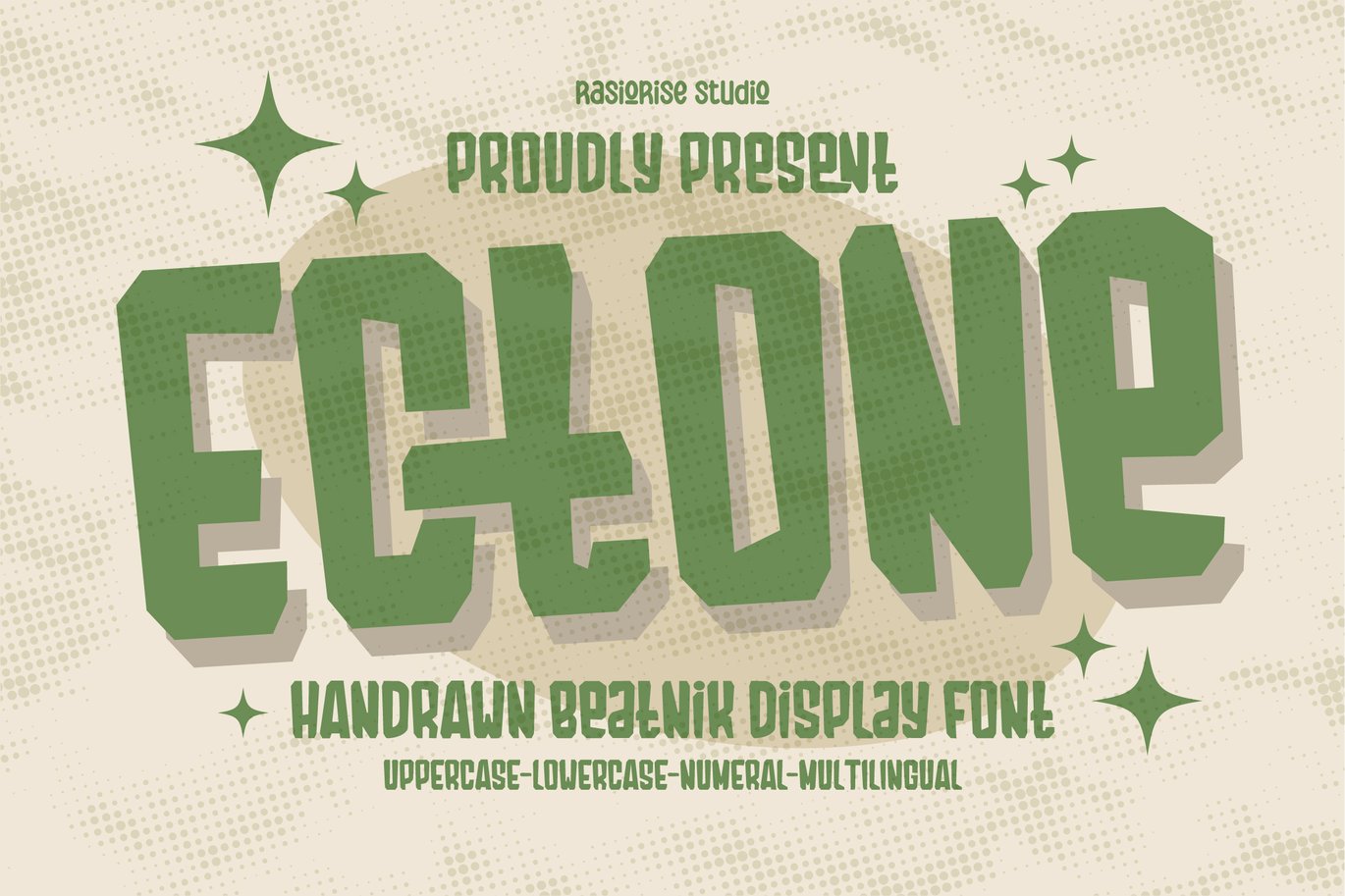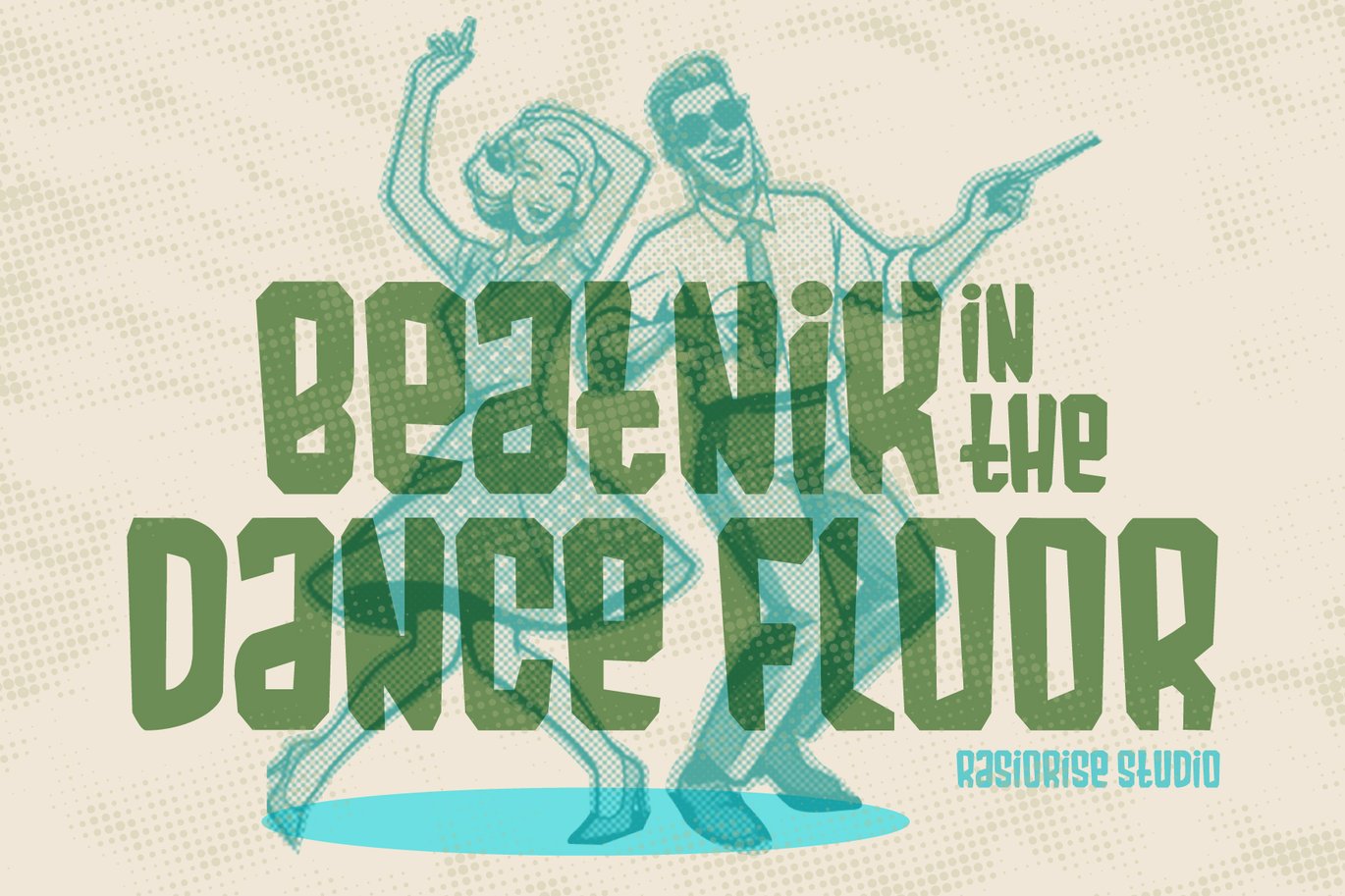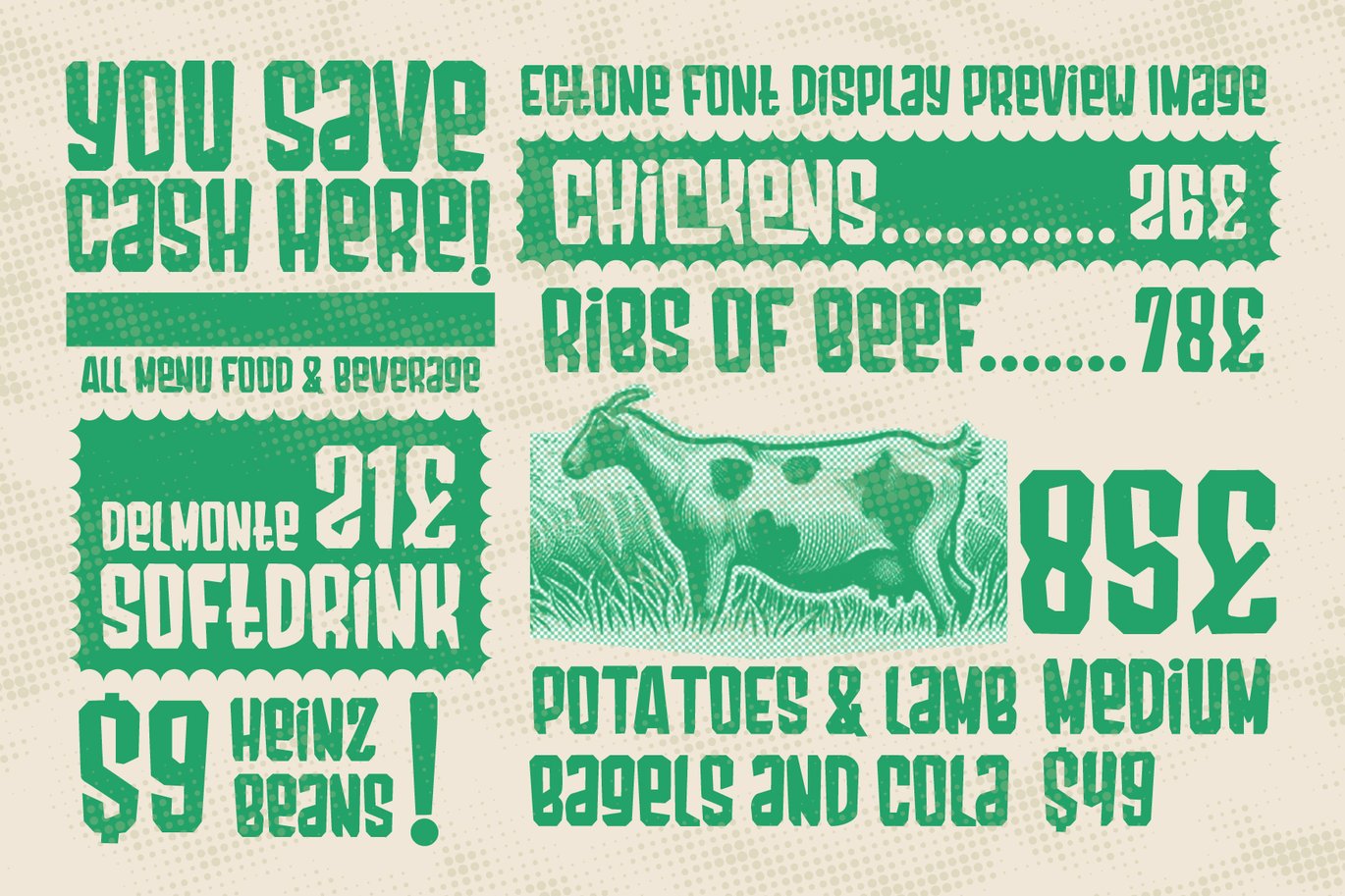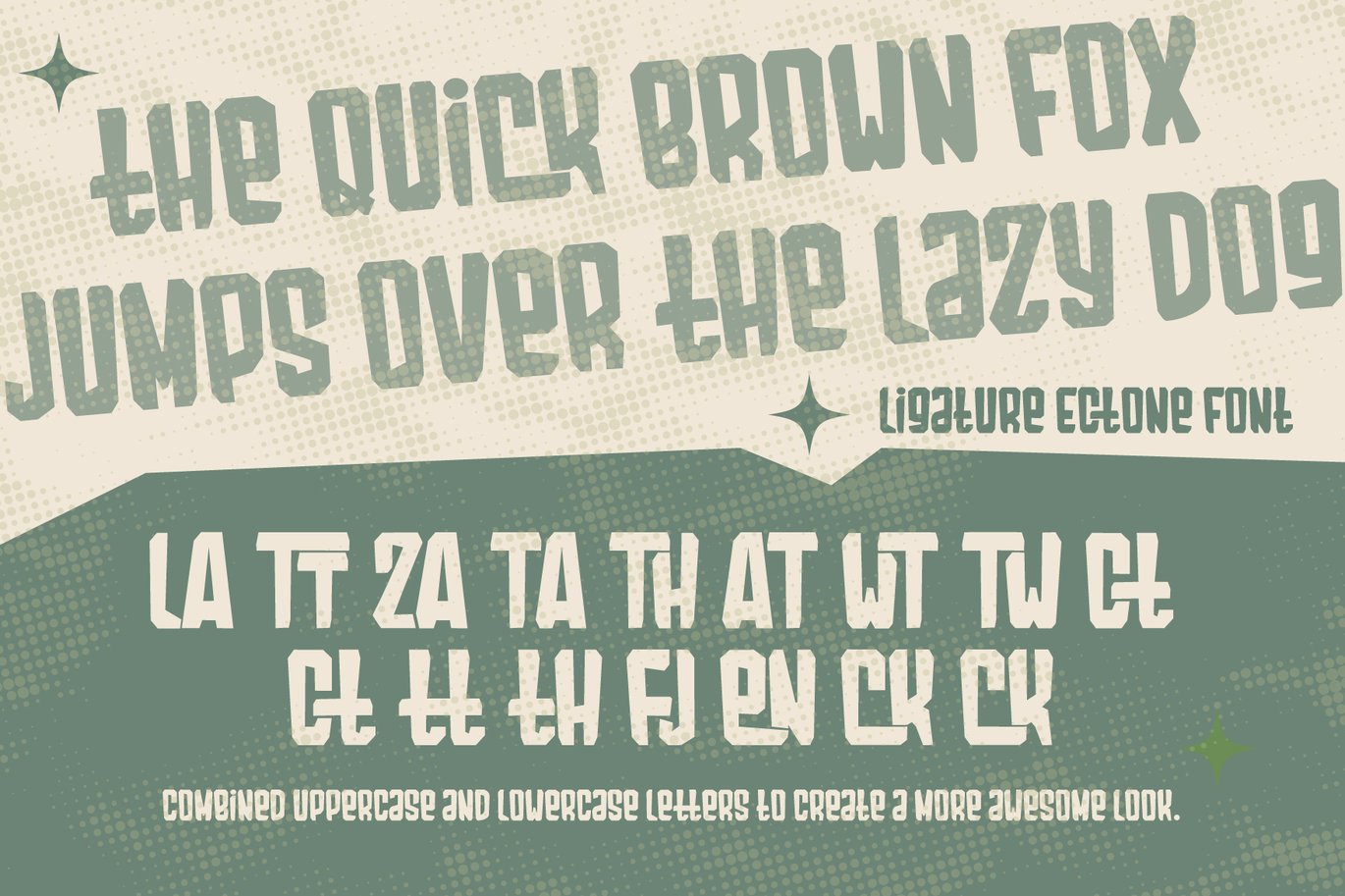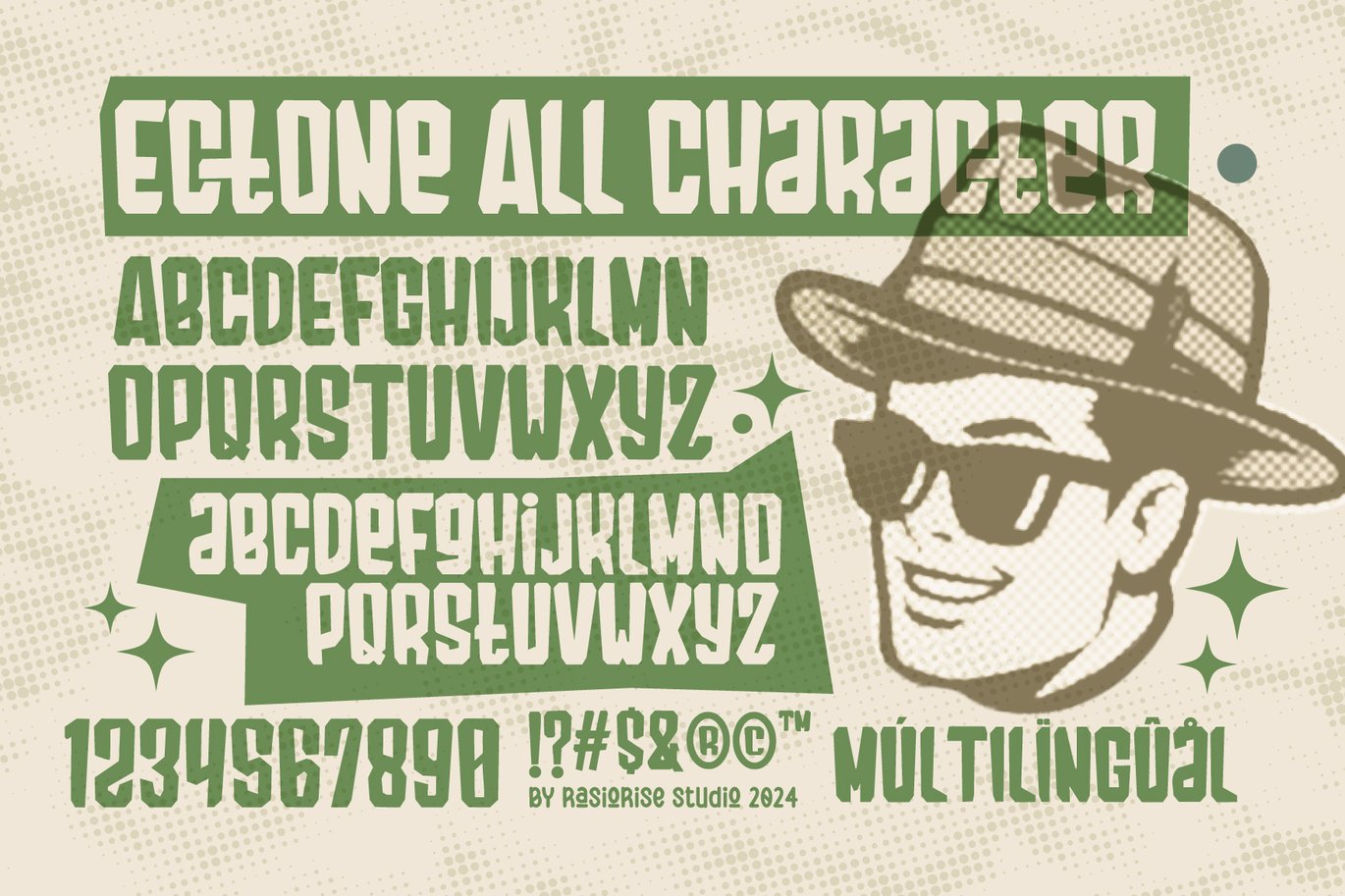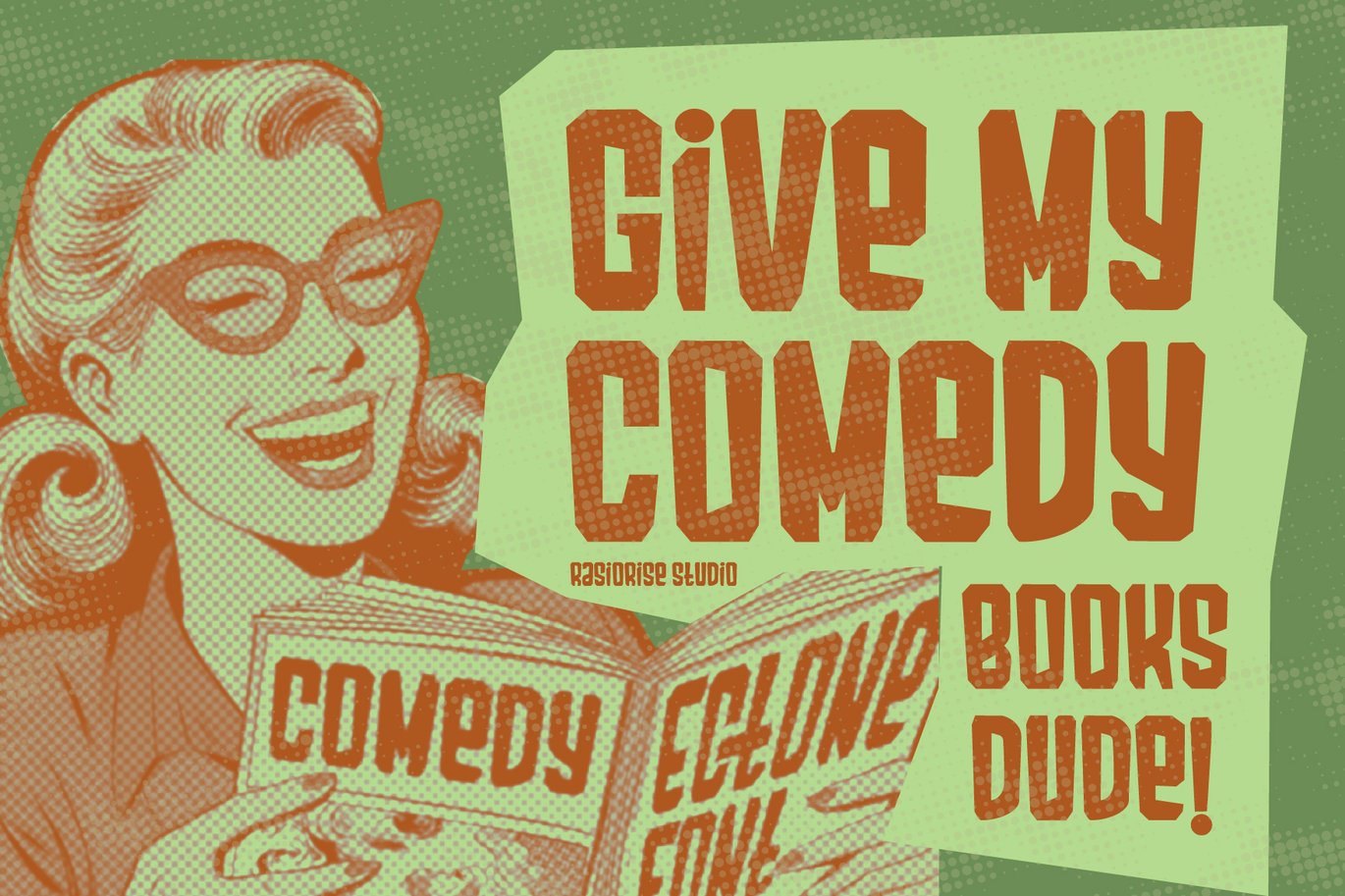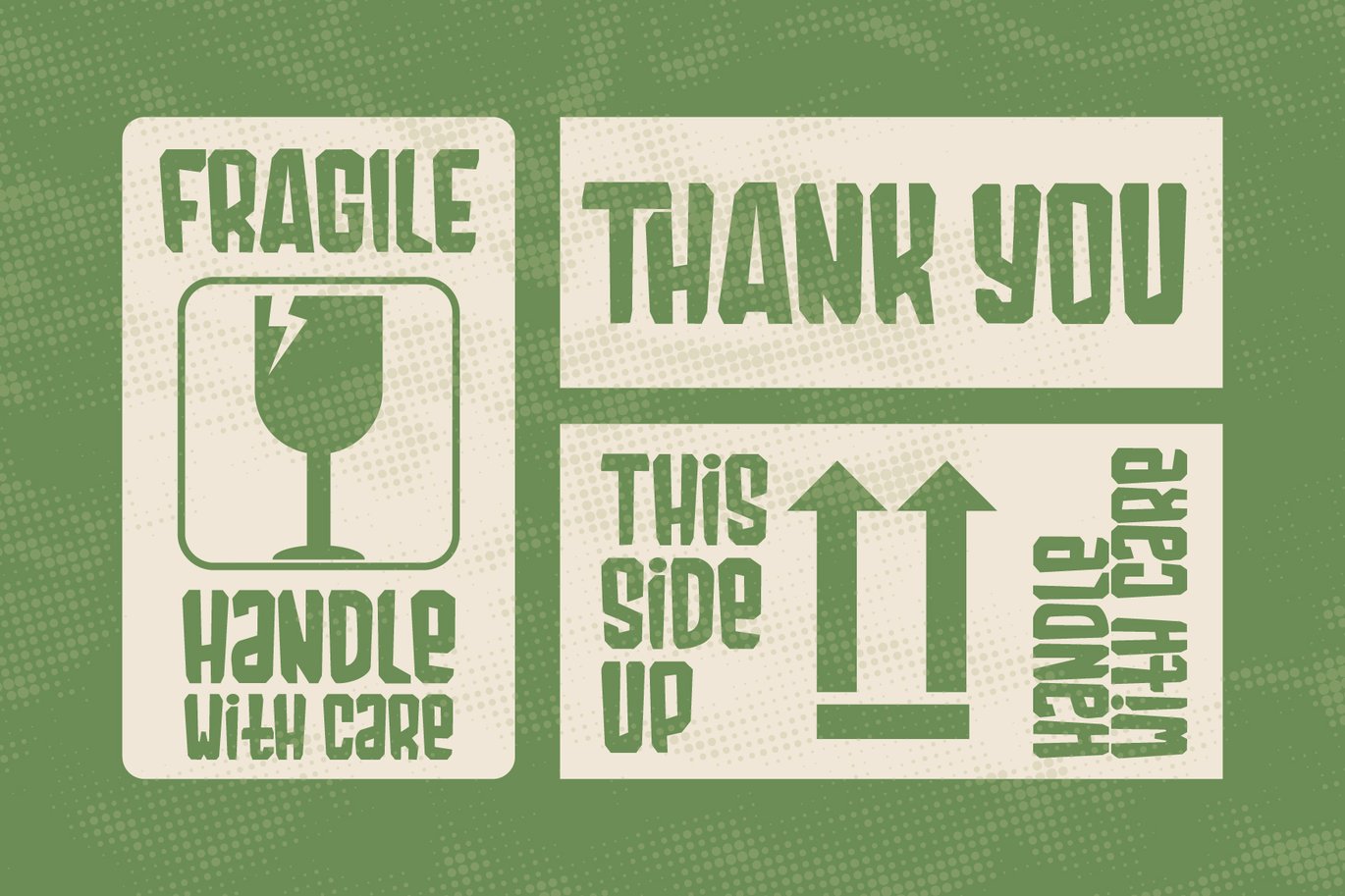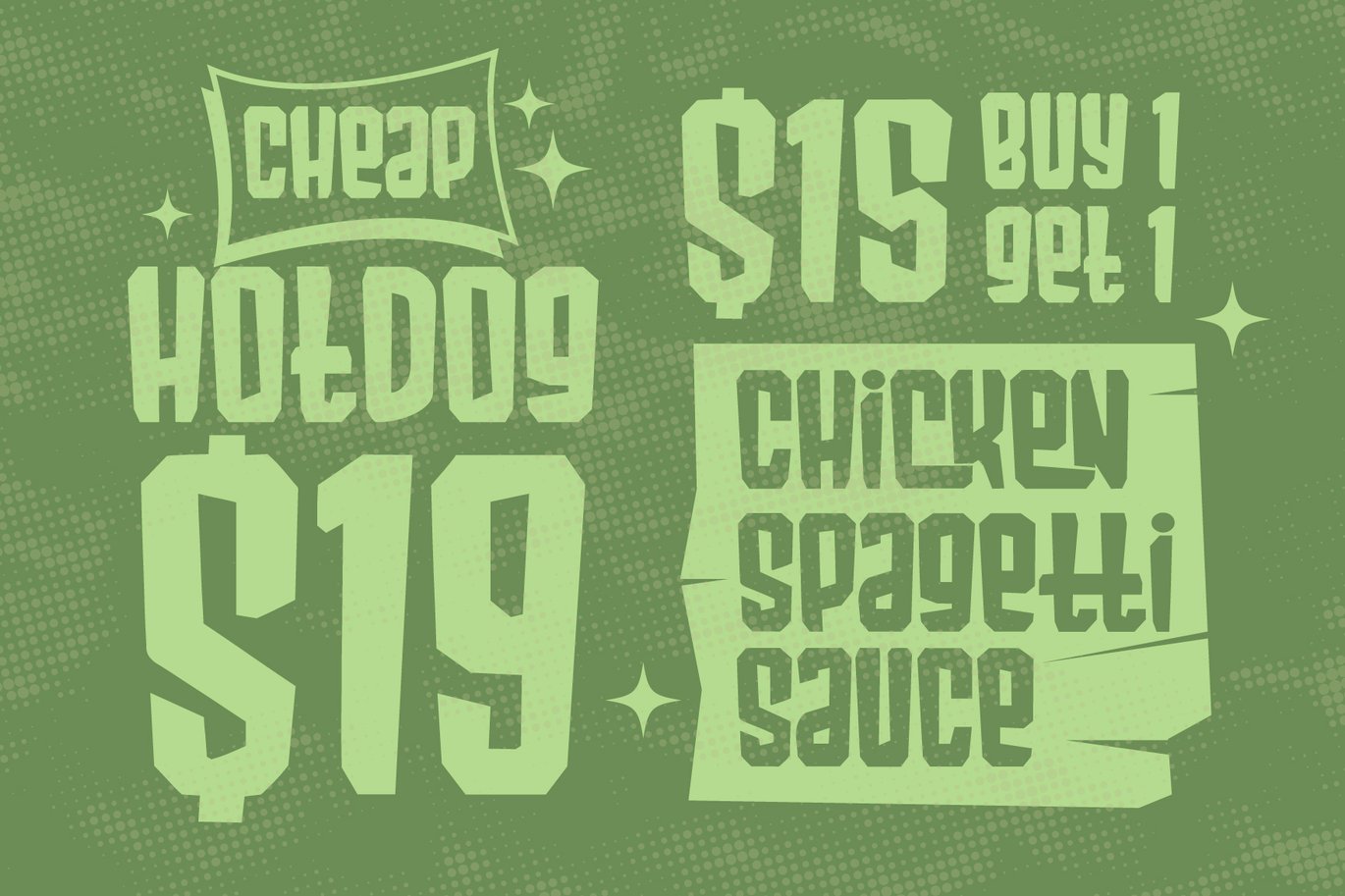
Ectone – Handrawn Beatnik Display Font
Presenting Ectone – Handrawn Beatnik Display Font By Rasiorise Studio
Ectone Font has been released for those of you who are looking for a Beatnik Display Font is a unique typeface 60s, 70s, 80s era, counter-culture the shape of a sans-serif font with an intentionally for anti-conformist youth (freestyle), The font is inspired by the Beatink Poster and Headline Sans-Serif Style font with a few combine to turn them into a bit of a Vintage and Handrawn style. Unleash your creativity at Vintage and oldskoll raw badge text with Ectone Font, perfect for adding a Beatnik/Surf Poster touch to any projects!
Ectone Font very suitable for Logotype, Book Cover, Badge/Emblem Design and Logo, Gift Card, Gretting Card, Poster, Merchandise, Packaging Label, and much more.